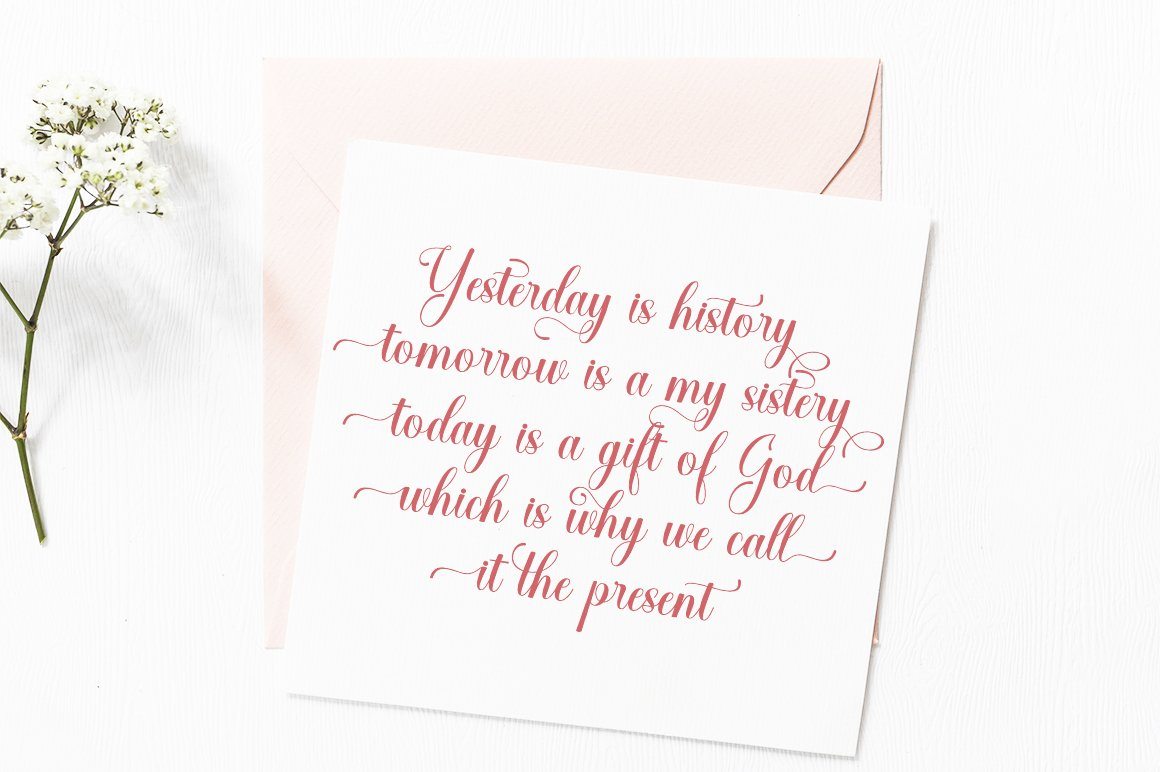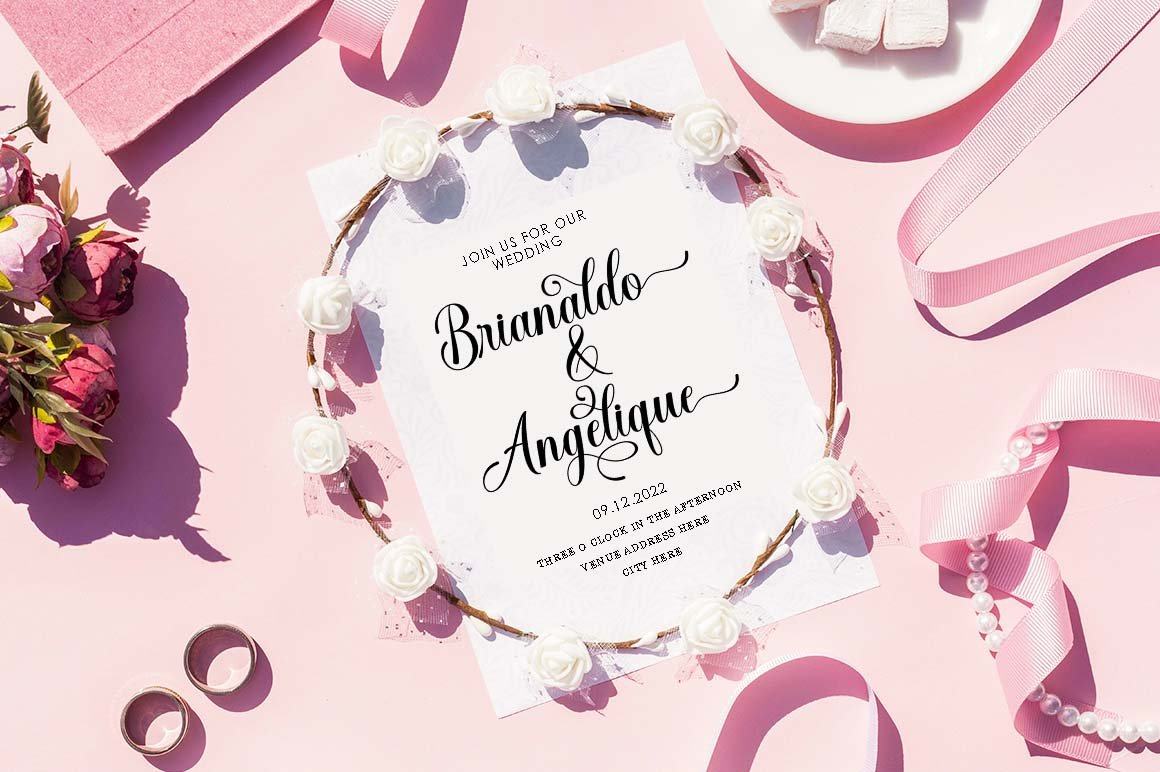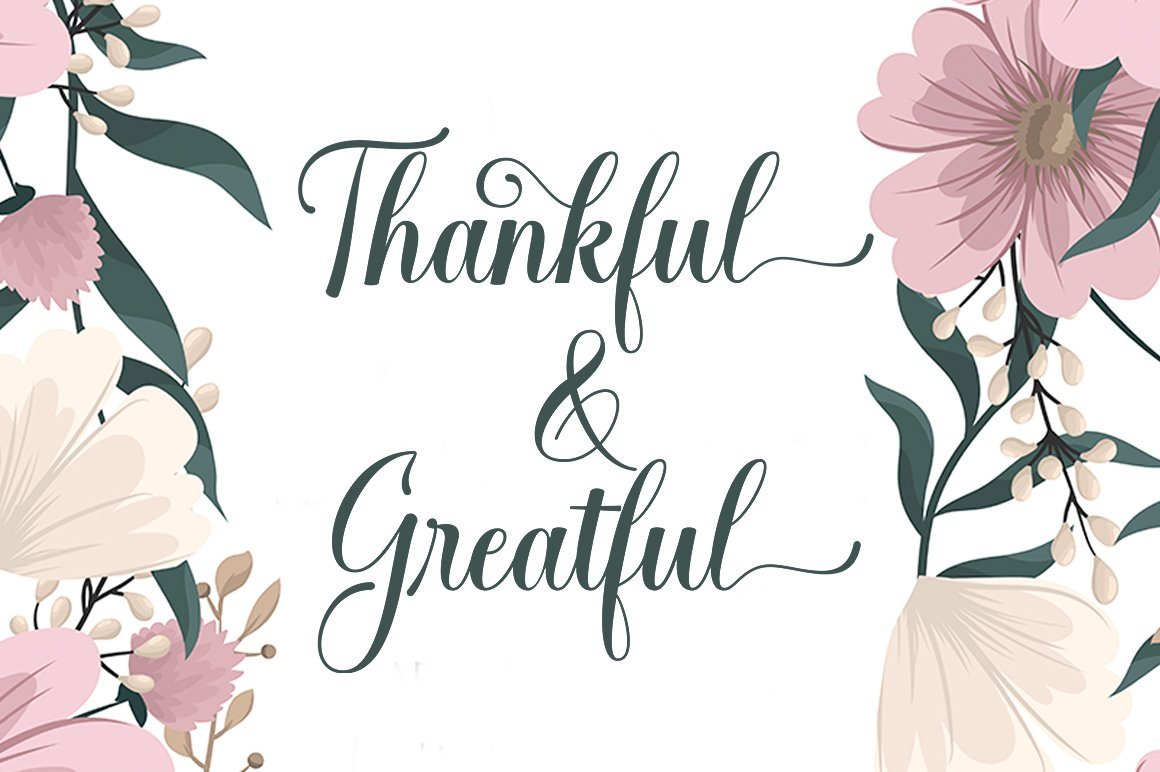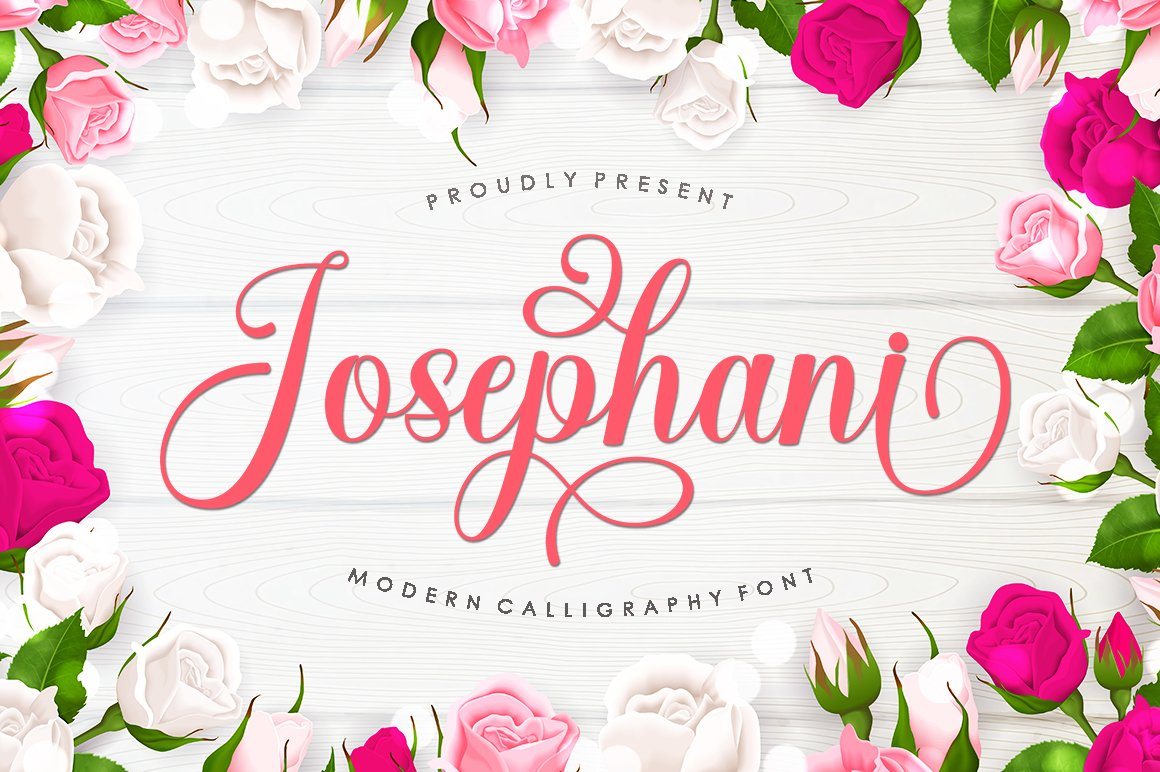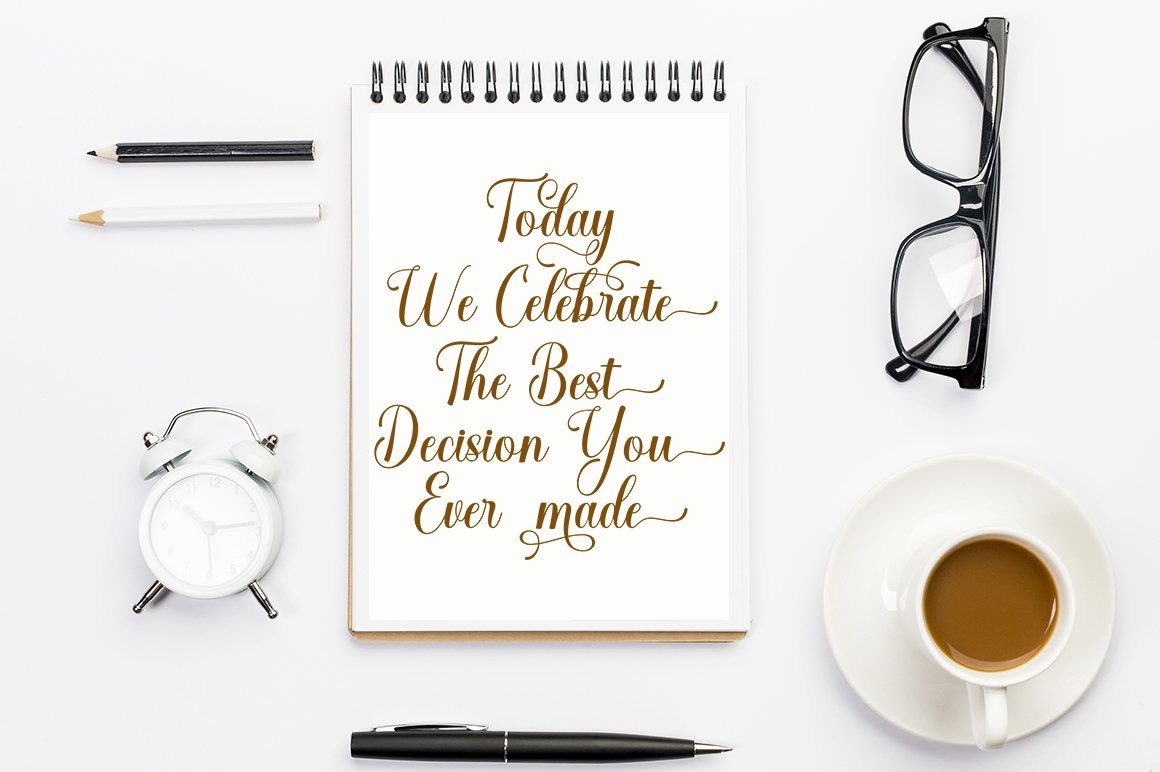
About Josephani
Josephani Script’s newest style with modern types of calligraphy fonts, I hope you are interested in this font, if you want to use it for your work This font can be used easily and simply because there are many features in it it contains the full set of lowercase and uppercase letters, various kinds punctuation marks, numbers, and multilingual support. The font also contains several Alternative ligatures and Stylistic Sets for those of you who have software which can work OpenType (Photoshop / Illustrator / InDesign). What is including: . Josephani Regular Script Josephani Script is Appropriate use for market designs developed at this time, this font has a model Trendy, natural and soft, with this font you can use a chance at every moment from one extraordinary way to highlight the celebration from your best party, because this font will be a supporter for the goal such as wedding invitations, parties, graduations, birthdays, meetings, etc.